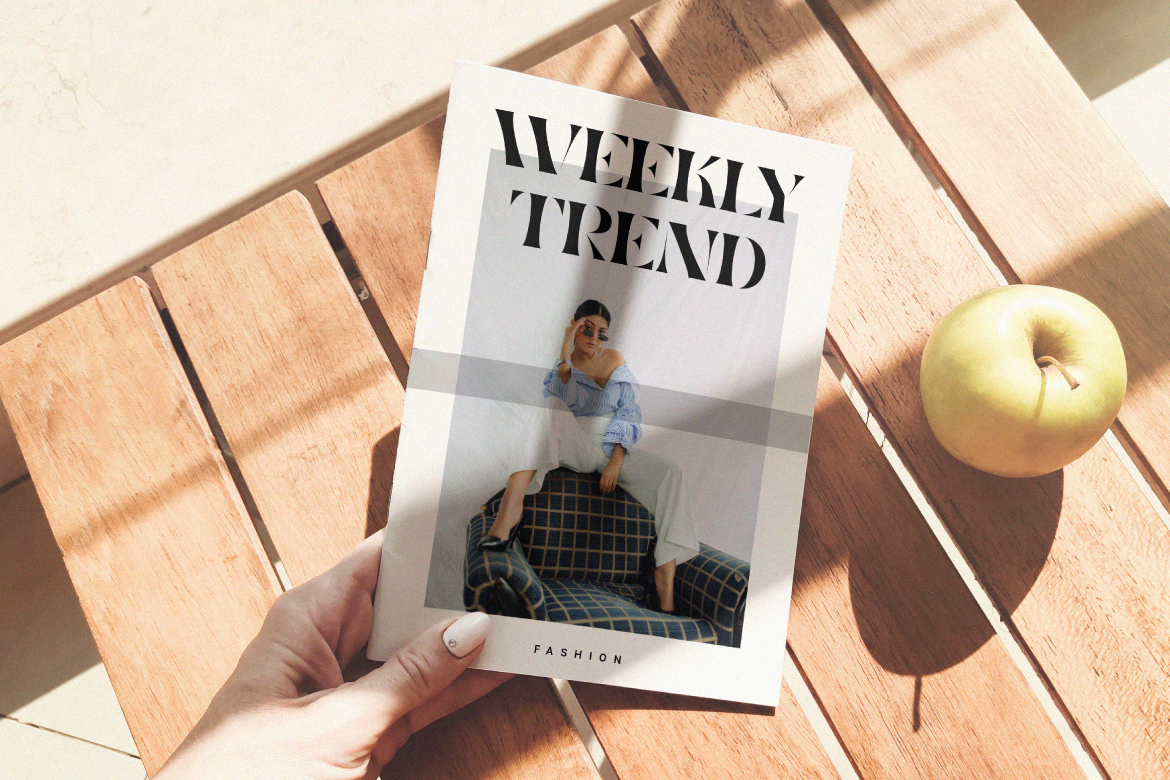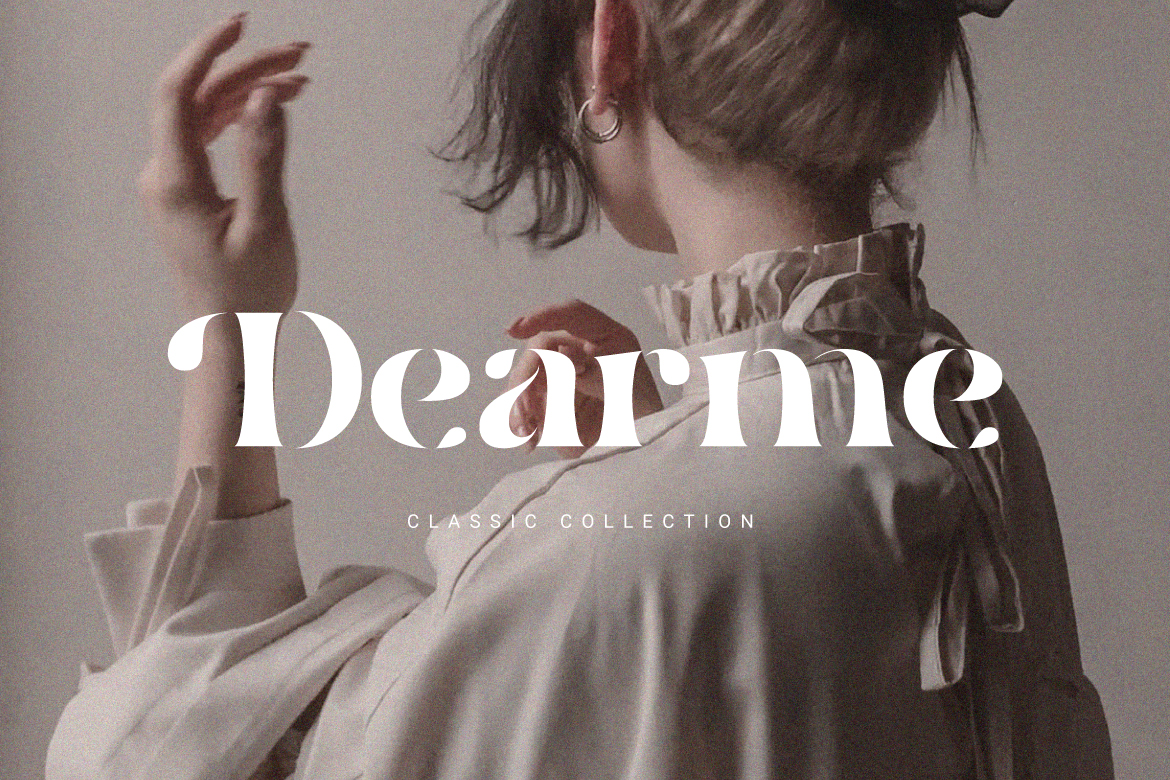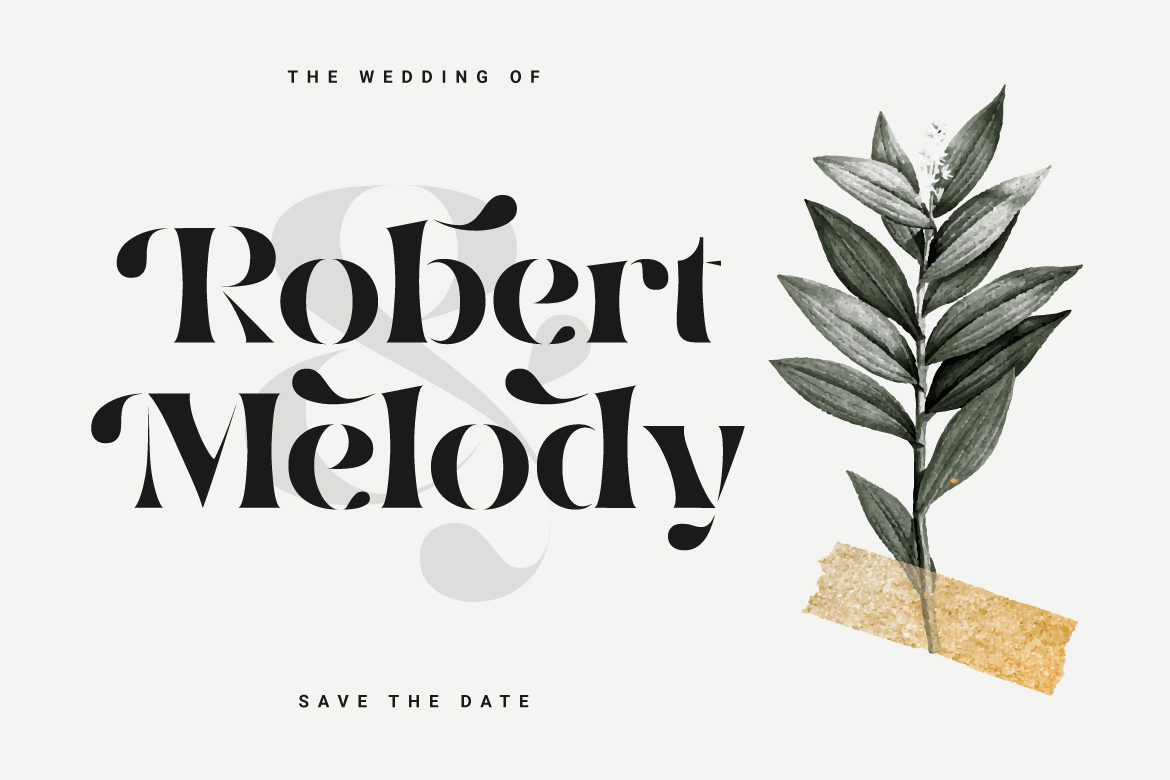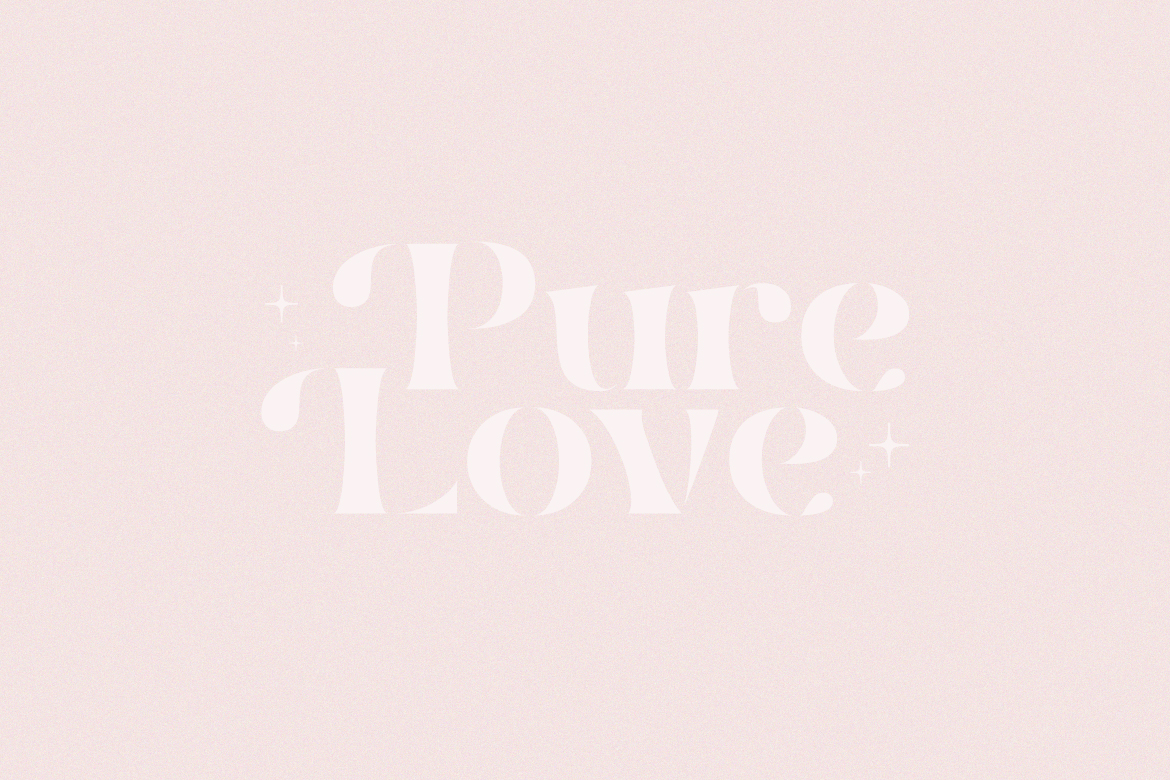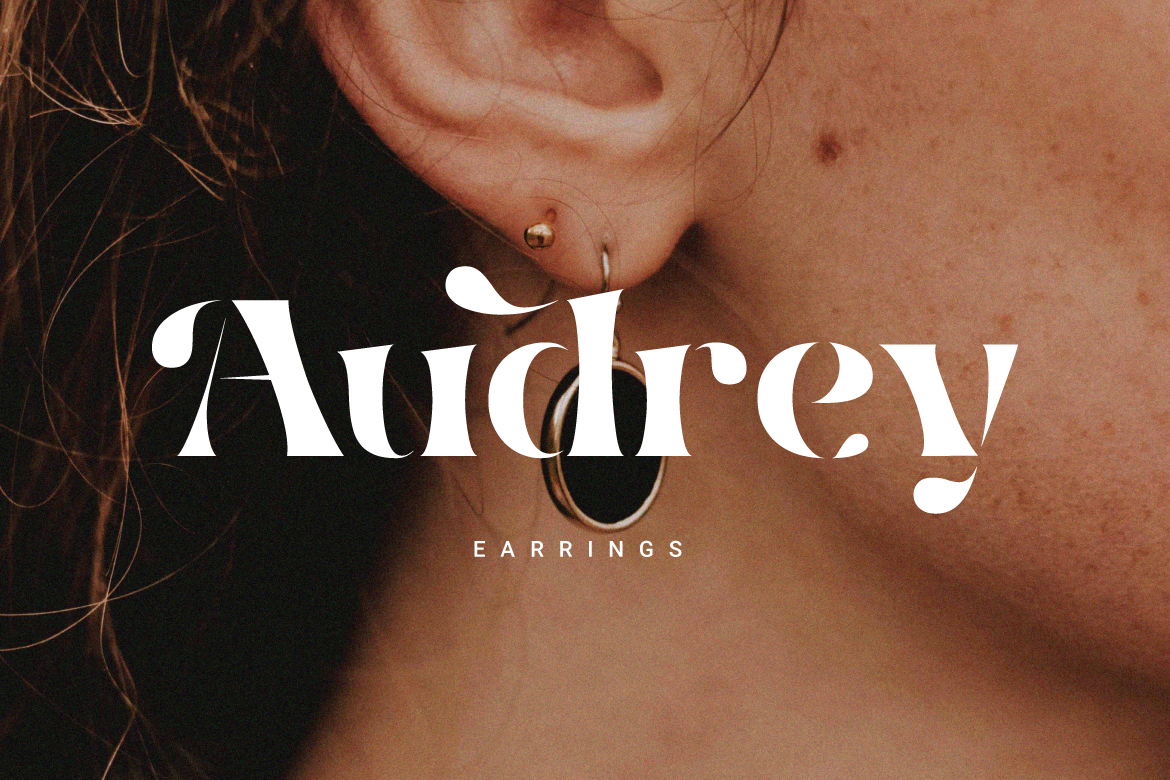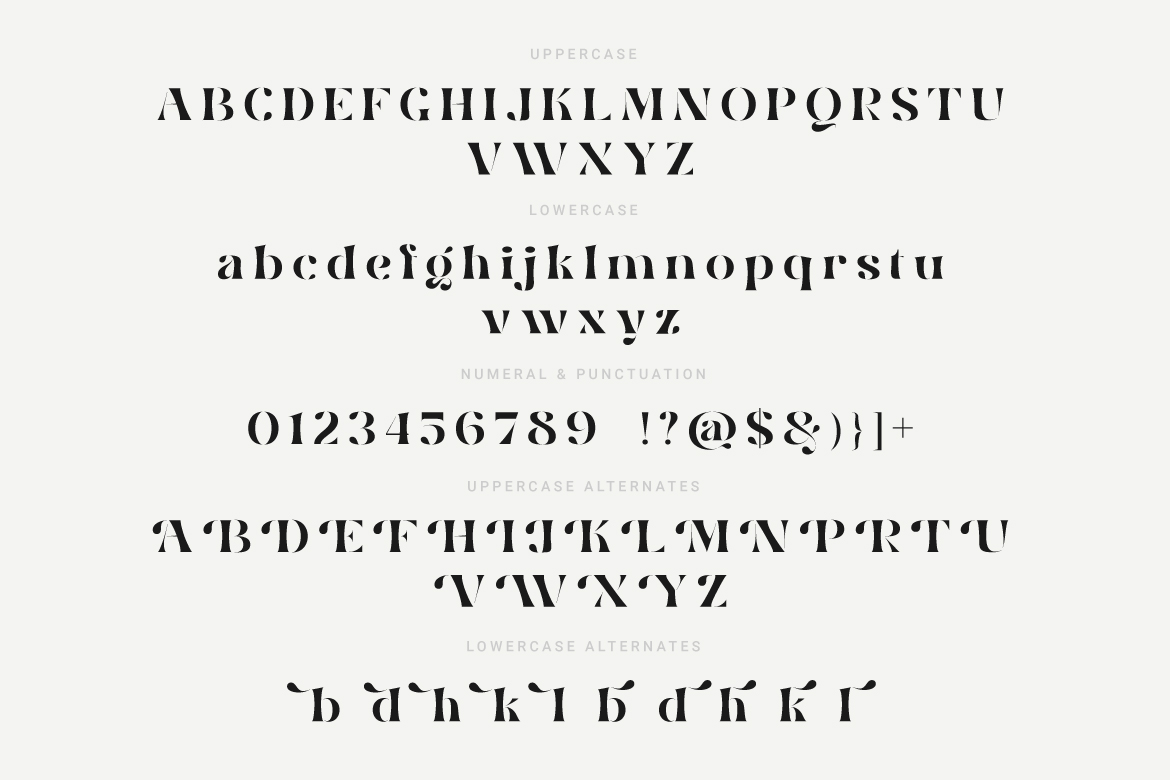
Introducing.
Smile Darling: Modern and classic style that allows your project to be more beautiful to look at. Perfect for branding, social media posts, magazines, wedding invitations and more.
• Features: Uppercase, Lowercase, Numeral, Punctuation, Multilingual, Ligature, Alternates & PUA Encoded.
Smile Darling